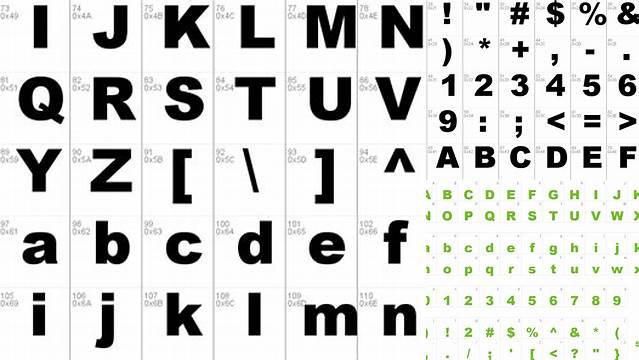
Hey guys! Ever admired the bold, eye-catching look of a particular font and wondered what it was? Well, chances are, you've encountered Arial MT Black! This font is a powerhouse in the world of typography, known for its strong presence and readability. This guide is your go-to resource for everything related to the Arial MT Black font family, including how to snag a free download, how to use it effectively, and some cool design tips to make your projects pop. Let's dive in, shall we?
What is Arial MT Black? Unveiling the Font's Characteristics
So, what exactly is Arial MT Black? Essentially, it's a variation within the broader Arial font family. Think of Arial as a modern sans-serif typeface, a popular choice for its clean and straightforward appearance. Arial MT Black, however, takes it up a notch. It's the boldest member of the Arial family, characterized by its extra-heavy weight. This means the strokes of each letter are significantly thicker, giving it a powerful and commanding presence. The font is known for its excellent legibility, even at smaller sizes, making it a fantastic choice for headlines, titles, and anything where you want to grab immediate attention. Unlike some other bold fonts, Arial MT Black retains the clean, uncluttered feel of the original Arial, making it versatile enough for various design applications. Its neutral design allows it to work well with many other fonts. Furthermore, due to the typeface's clarity, Arial MT Black is often a solid option for body text, although designers tend to reserve it for the headings or subheadings of the content.
Consider this font when creating advertisements, posters, logos, and even website headers. Arial MT Black immediately brings the focus to the words displayed. The font works well when you want to emphasize a particular phrase or message. The thicker strokes and darker appearance of the font also make it an ideal choice for branding materials, creating a bold and memorable impression for viewers. While the versatility of Arial MT Black is remarkable, it is important to be strategic about where and how it is used. Overuse can sometimes create a sense of visual clutter, undermining the message the font is trying to convey. When used correctly, however, Arial MT Black can be a highly effective tool, and its unique and recognizable visual impact can enhance your design work, making it more memorable and impactful.
To understand the characteristics of Arial MT Black, one should look at the font's structure. As a sans-serif typeface, Arial MT Black lacks the delicate serifs found in fonts like Times New Roman. This sans-serif design lends the font a contemporary, modern look. The extra-heavy weight of the font, which is the main difference from standard Arial, provides the font with an immediate feeling of stability and authority. The consistent stroke thickness across the characters makes the font easy to read, and this uniformity is especially important at smaller sizes. The font's wide letterforms also contribute to its excellent readability. The spacious design allows each character to stand out, making the words easy to distinguish from each other. These features are the hallmarks of Arial MT Black's distinctive look and make it a favorite font among designers. Also, the simplicity of the font's design allows it to blend effortlessly into different design projects, and it’s a very well-chosen font for conveying a message.
Using Arial MT Black in Your Design Projects: Best Practices
Now that you've got the font, how do you use it like a pro? Arial MT Black is a workhorse, but it's all about using it strategically. First off, think about your design's purpose. Is it for a headline? Arial MT Black shines in grabbing attention. Is it for body text? Maybe not the best choice unless you want to highlight a particular section. When you're using the font, it’s wise to pair it with a lighter font for body text to balance the design, creating a cohesive look that is easy on the eyes. Consider using it in titles, headers, and calls to action where you want to make a strong statement.
Contrast is your friend. The boldness of Arial MT Black means it pairs well with lighter fonts. Experiment with different sizes. You can use Arial MT Black for a large, impactful headline, and a smaller, lighter font for the body copy. Remember, readability is key, so ensure the font size and spacing are appropriate for the text. For example, if you're creating a website header, the Arial MT Black font can be used to make sure the viewers see it and remember it. For a poster, you might want to use this font to display a slogan, call for action, or any information that you need to be emphasized. Consider the overall aesthetic of your design. Is it modern? Arial MT Black fits perfectly. Is it more classic or elegant? You might want to choose a font that complements this style. Always preview your design on different devices to make sure the font looks great on all platforms. The font's bold look makes it ideal for branding, and helps to create a strong brand identity. It is also recommended that you use this font with a contrasting color to emphasize your message.
Arial MT Black vs. Arial Black: What's the Difference?
Okay, this can be a little confusing for some, so let's clear it up, yeah? Arial MT Black and Arial Black are very similar and are often used interchangeably. However, there are slight differences. Arial MT Black is often used in different design applications, and some might include certain stylistic variations. They both share the same core characteristics: a heavy, bold weight and a clean sans-serif design, so the legibility is almost the same. Because the differences are so minor, it comes down to the specific software or font package you are using, so in most cases, you will be fine using either one. Remember to check the character sets and the font metrics, to get a deeper understanding of the distinctions between the fonts, so you can pick the one that meets your design requirements.
Designing with Arial MT Black: Tips and Tricks
Time to get creative! Here are some tips to help you make the most of this awesome font:
- Pairing:** Combine Arial MT Black with a more delicate font. This creates visual balance and prevents your design from feeling overwhelming. Try pairing it with a lighter weight of Arial, or another sans-serif font. For example, for a headline, use Arial MT Black and then use Arial Regular or a similar font for body text. You can also try pairing Arial MT Black with a serif font, if your design requires a vintage look. Experiment with different font combinations to find the perfect match. The goal is to create a balance between the boldness of Arial MT Black and the other font that adds a little more personality to the design.
Conclusion: Arial MT Black - A Design Powerhouse
So there you have it, guys! Arial MT Black is a fantastic font choice for a variety of design projects, it’s a timeless and versatile font that deserves a place in every designer's toolkit. Whether you're creating eye-catching headlines, branding materials, or anything else, this font is a great way to grab attention and make a statement. Remember to download it safely from a reputable source, understand the usage licenses, and experiment with different pairings and styles to discover the best ways to use this awesome font. Now go forth and create some amazing designs! Happy designing!